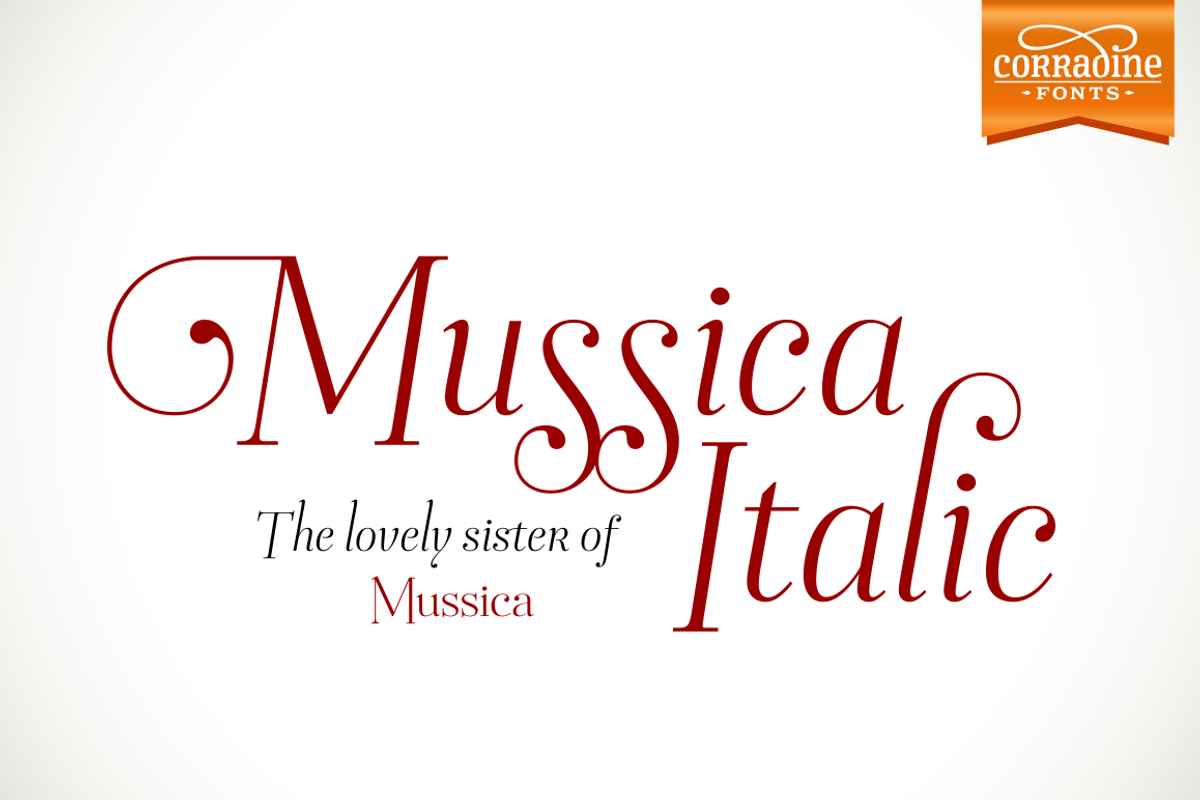
Mussica Italic Font Free Download is a refined and elegant typeface that blends classic Italian style with a contemporary flair. With its sweeping curves, soft slant, and sophisticated details, this font is perfect for wedding invitations, luxury branding, editorial layouts, packaging, and high-end logos that require a touch of timeless beauty.
Whether you’re creating a romantic event invitation, building a chic brand identity, or designing an elegant publication, Mussica Italic Font adds grace, charm, and sophistication to your typography. It’s the ideal font for designers seeking a seamless blend of classical elegance and modern refinement.